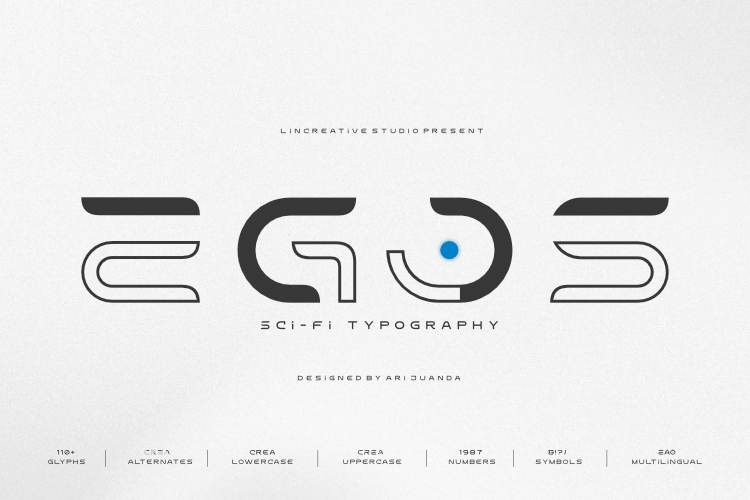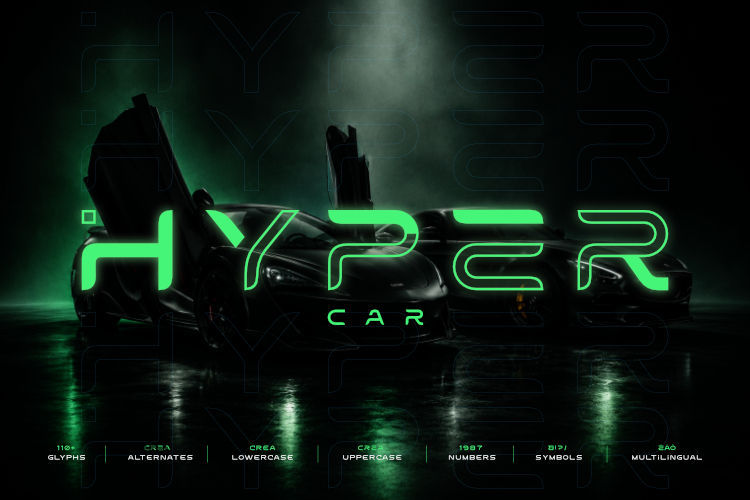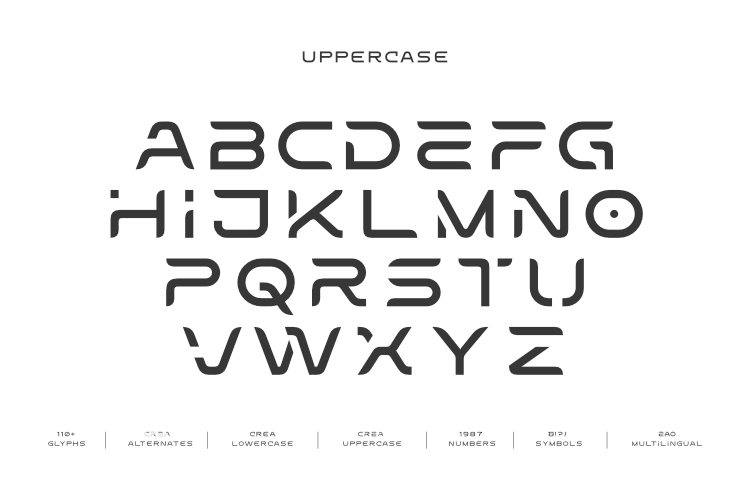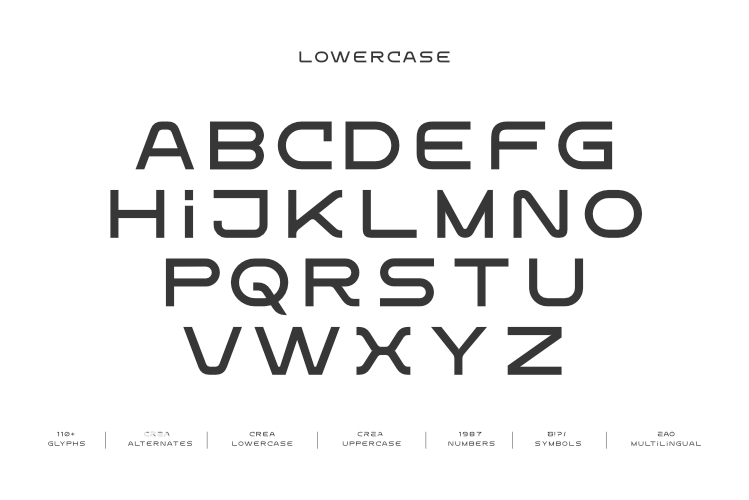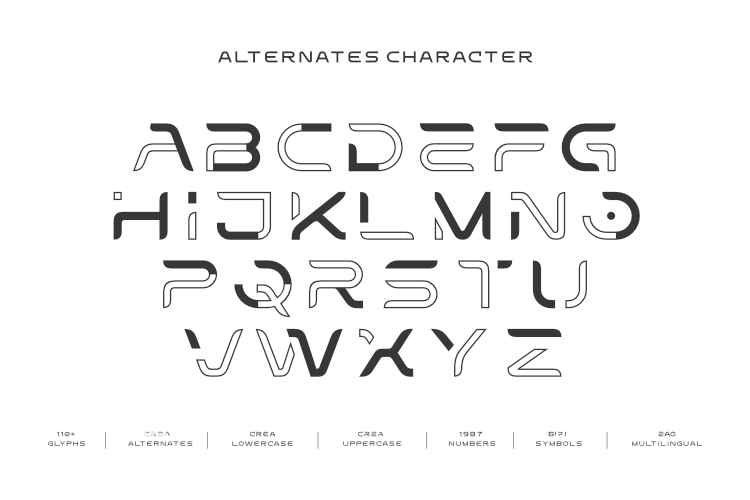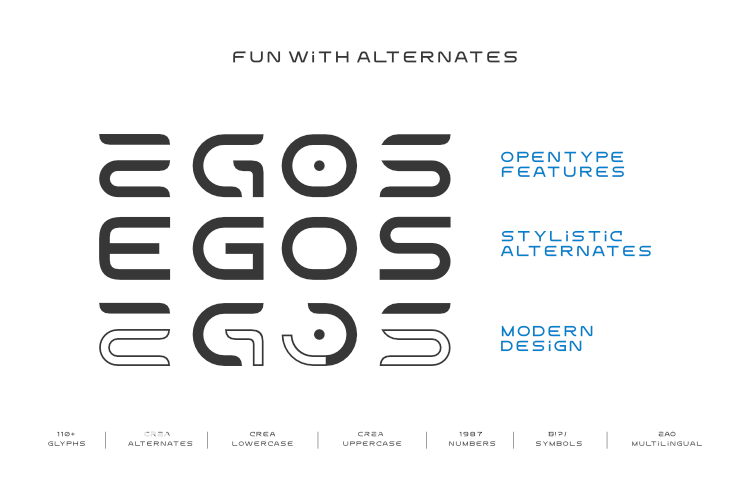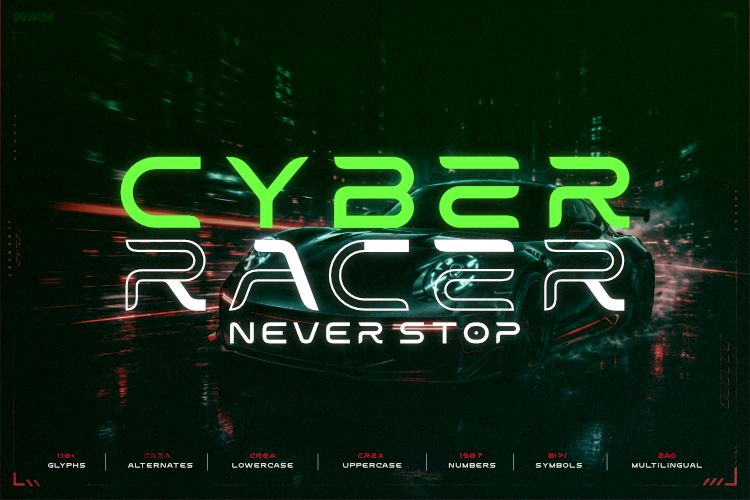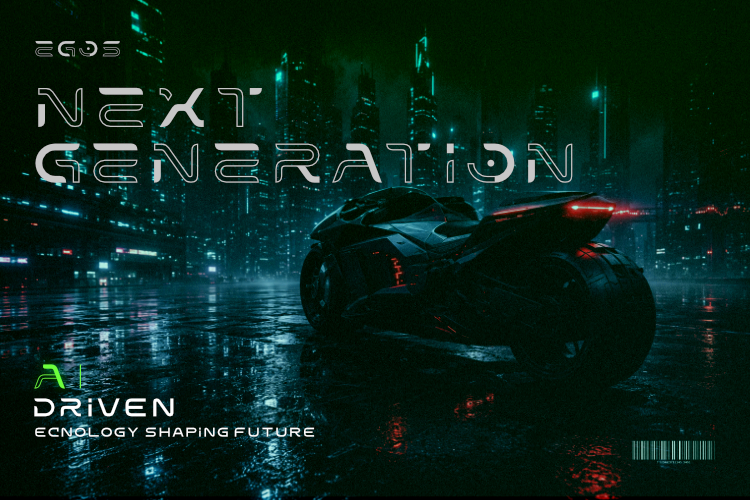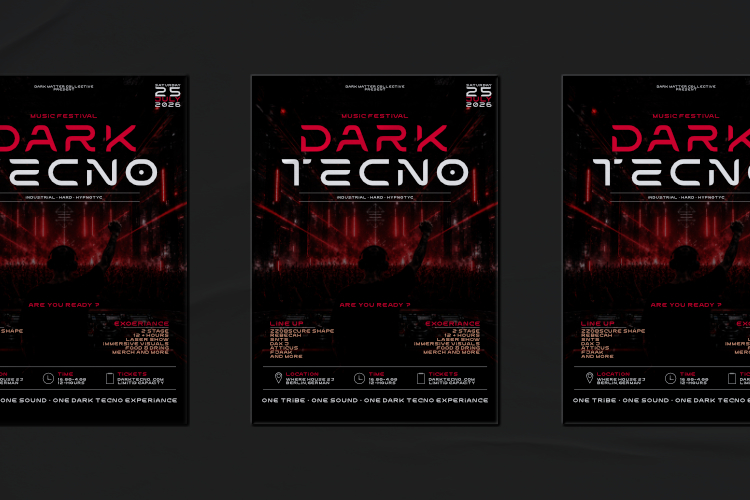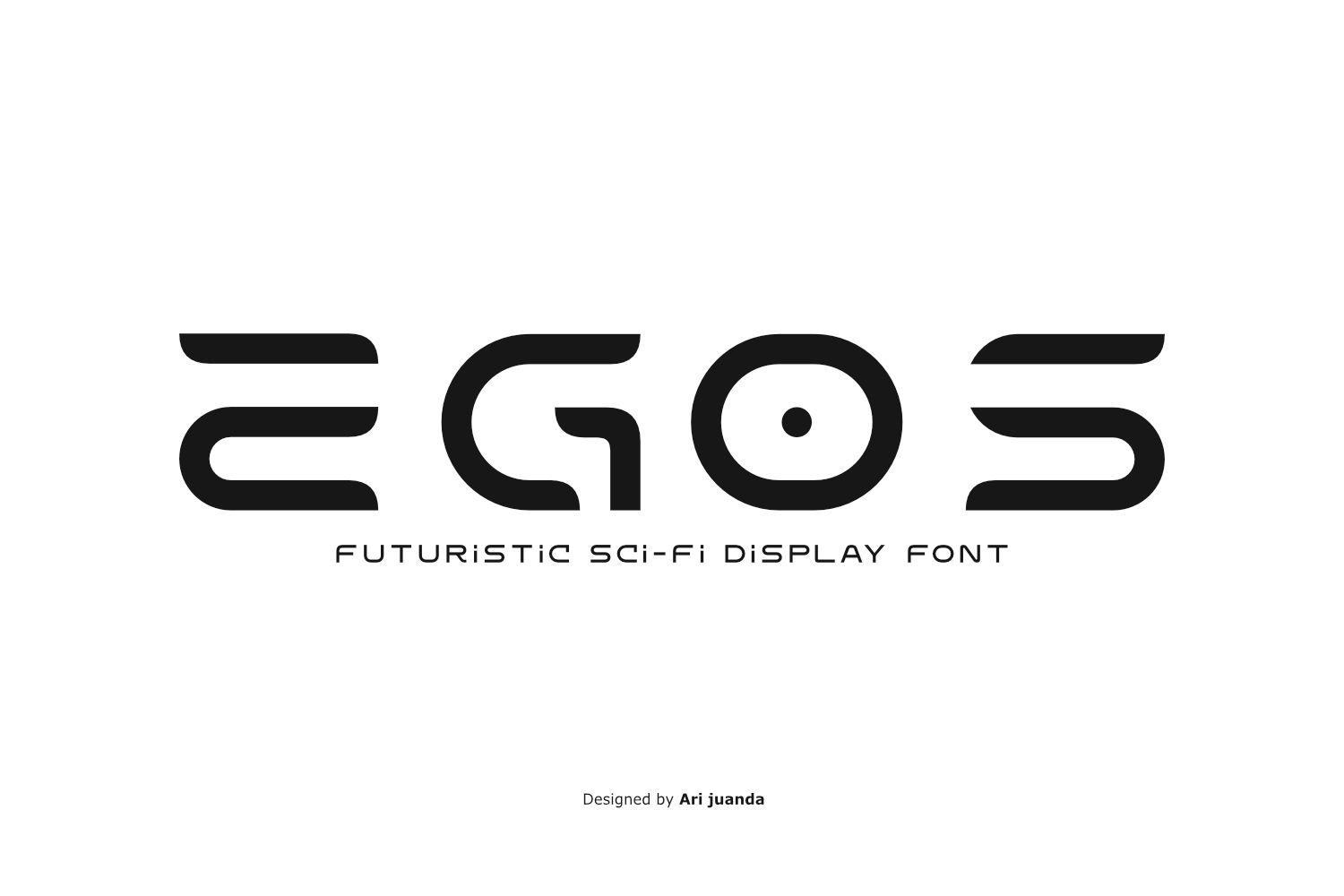
EGOS – Futuristic Sci-Fi Display Font | Official by Ari Juanda
EGOS – Futuristic Sci-Fi Display Font
Egos Futuristic Sci-Fi Display Font is a modern futuristic typeface designed for creators who want to bring a clean, technological, and distinctive personality to their typography. Inspired by advanced technology, cyberpunk aesthetics, and sleek sci-fi interfaces, EGOS combines geometric forms with precision-cut details to create a high-tech appearance while maintaining excellent readability.
Designed by Ari Juanda in 2026, EGOS was created for contemporary design projects that require typography with a futuristic visual character. Its clean construction and distinctive letterforms make it suitable for creating strong headlines, memorable logos, modern branding, and digital graphics. EGOS gives each word a sense of precision and innovation without making the typography unnecessarily complicated.
The visual character of Egos Futuristic Sci-Fi Display Font comes from its modern geometric construction and carefully refined details. The letterforms have a technological appearance that can work naturally with cyberpunk graphics, digital interfaces, futuristic environments, and science-fiction-inspired artwork. This makes EGOS a versatile choice for designers working across both digital and physical media.
Whether you are developing a futuristic brand identity, creating an esports logo, designing an electronic music poster, or working on a science-fiction project, EGOS can give your typography a strong technological personality. Its display-oriented design is especially effective when the typeface needs to become an important part of the visual composition rather than simply supporting the content.
Another important feature of EGOS is its Stylistic Alternates. These alternate characters give designers more freedom to explore different character combinations and create typography with a more personalized appearance. You can experiment with different letterforms when creating headlines, logos, wordmarks, posters, and other prominent typographic compositions.
Perfect For
Egos Futuristic Sci-Fi Display Font is suitable for a wide range of modern and futuristic design projects, including:
• Futuristic Logos
• Cyberpunk Branding
• Gaming & Esports
• Sci-Fi Movie Titles
• Tech Startups
• Electronic Music Posters
• DJ Branding
• UI & HUD Concepts
• YouTube Covers
• Automotive & EV Branding
• Product Packaging
• Apparel Design
• Digital Content
Features
• 110+ Glyphs
• Uppercase & Lowercase
• Stylistic Alternates
• Numbers & Punctuation
• Multilingual Support
• Modern Geometric Design
Why You’ll Love EGOS
Modern visual design continues to move toward cleaner, more precise, and technology-inspired aesthetics. EGOS reflects this direction through balanced proportions, geometric construction, and distinctive precision-cut details. The result is a futuristic display font that feels contemporary while remaining practical for everyday creative work.
Unlike futuristic typefaces that can become difficult to read because of overly complex letterforms, EGOS maintains a clear visual structure. This balance between futuristic styling and readability makes it useful for projects where typography needs to communicate a strong identity while remaining recognizable.
The Stylistic Alternates also add another level of creative flexibility. Designers can explore different character combinations to create typography that feels more distinctive and customized. This can be particularly useful for logos, headlines, esports identities, posters, and other projects where a unique typographic appearance is important.
EGOS works especially well with visual styles involving technology, cyberpunk culture, gaming, electronic music, science fiction, automotive design, and digital products. Its geometric forms can complement neon graphics, dark futuristic environments, interface-inspired layouts, and modern technology branding.
From a futuristic technology startup to an esports identity, from a sci-fi movie title to an electronic music poster, Egos Futuristic Sci-Fi Display Font provides a strong foundation for creating modern and memorable typography.
Designed by Ari Juanda, EGOS is made for designers who want a typeface that feels modern, precise, technological, and ready for the future.